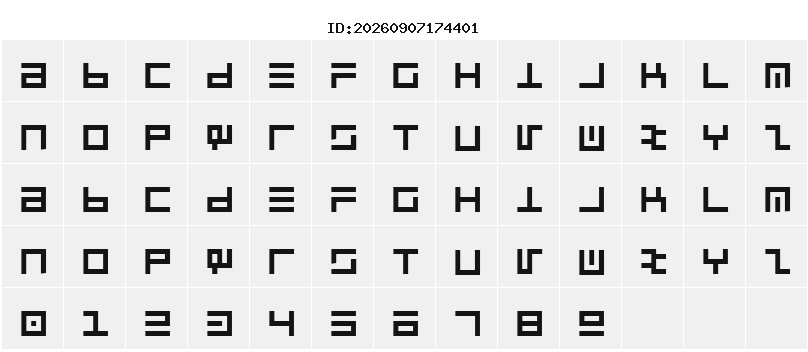
UltraLine Preview
• Font Name: UltraLine
• Font ID: Altsys Fontographer 3.5 UltraLine Regular
• Full Font Name: UltraLine Regular
• Version: Altsys Fontographer 3.5 3/30/92
• PostScript Name: UltraLine Regular
About UltraLine.ttf
UltraLine.ttf is a modern, elegant sans-serif font designed for ultimate readability and visual harmony. Perfect for branding, headlines, web design, and print materials.